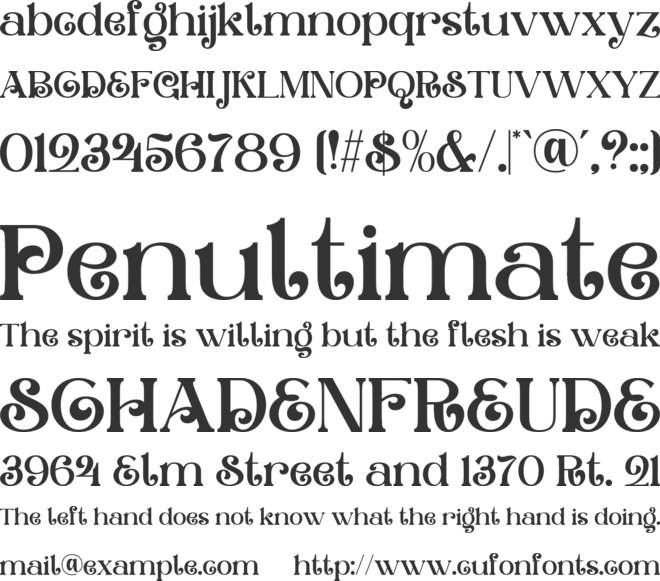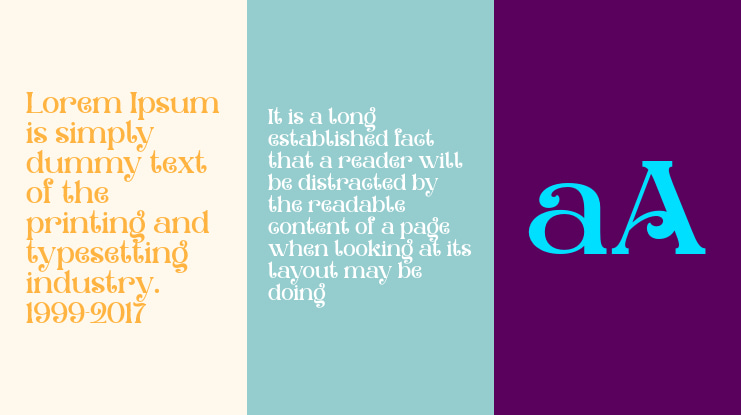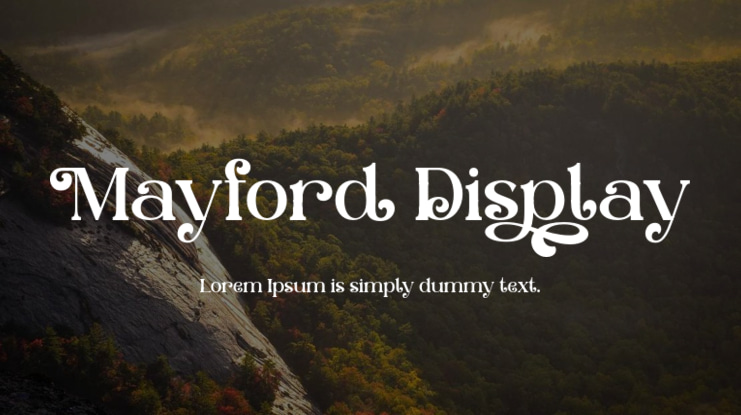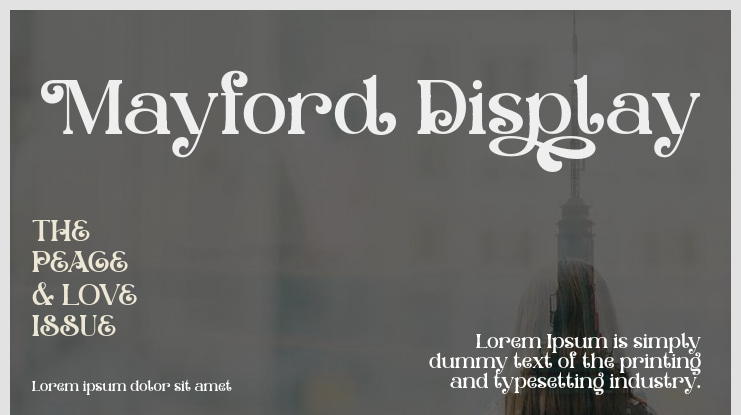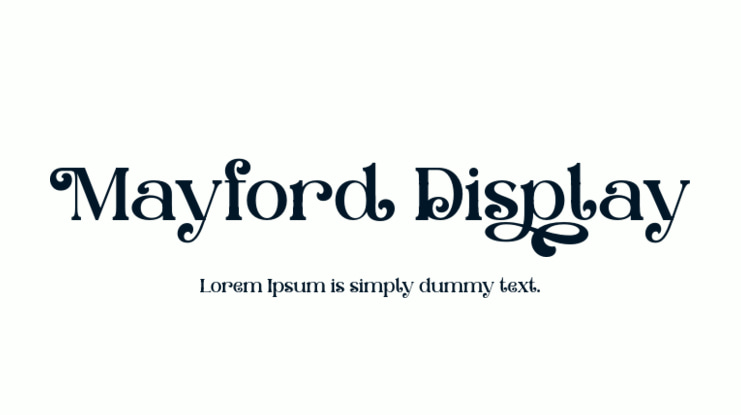
Mayford Display Font
Manford Display is a modern serif font with a unique style, a light and high contrast font perfect for feminine logo signs, fashion heads & editorial designs.